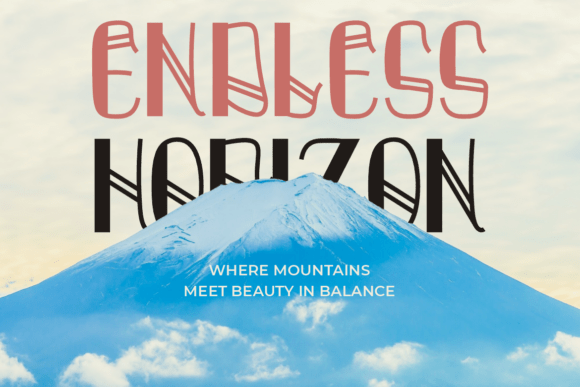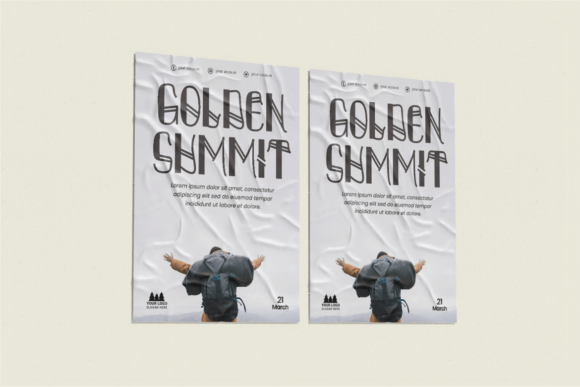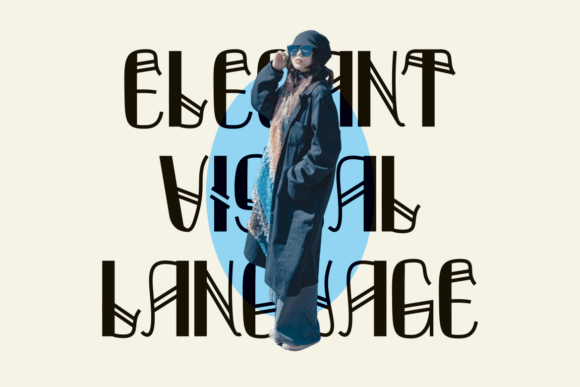
Introduction to Luxore Shift Font
Luxore Shift – Display Font blends elegance with architectural precision, delivering a high-fashion visual language for premium design needs.
Each letterform features a sleek modern structure, subtly embellished with sophisticated line overlaps that mimic ribbon folds or fine embroidery This luxurious typeface offers a distinctive and upscale character, making it perfect for premium branding, editorial layouts, fashion covers, or exclusive product packaging.